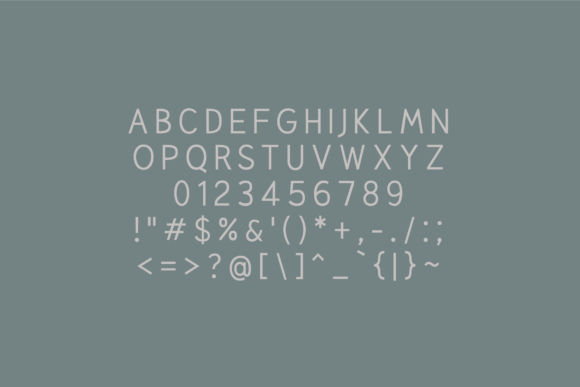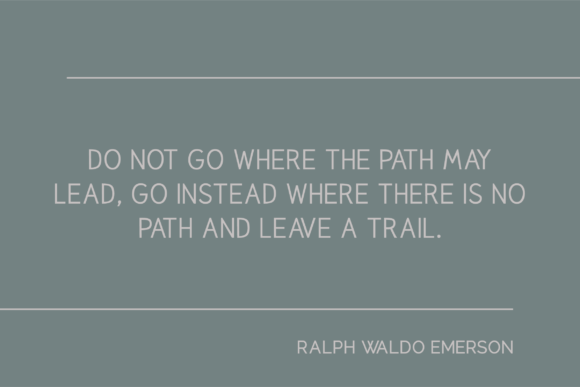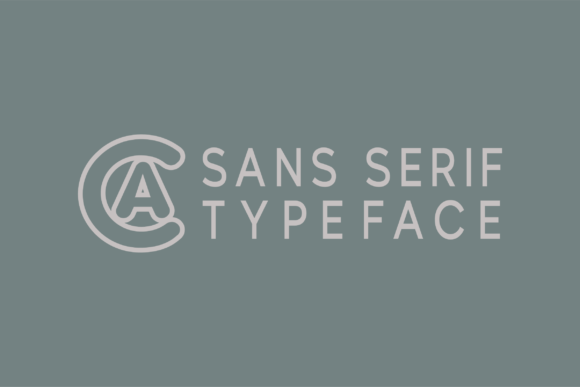
Unleash Your Creativity with Damoclaris: A Comprehensive Guide
I’ll never forget the time I was working on a wedding invitation project, and my client requested a font that exuded elegance and sophistication. I scoured the internet, tried out countless typefaces, but nothing seemed quite right. That was until I stumbled upon Damoclaris. This stunning sans serif font has been a game-changer for me, and I’m excited to share its beauty with you.
A Personal Review of Damoclaris
- ✨ **Contemporary Elegance**: Damoclaris embodies sophistication and style, making it perfect for high-end projects.
- ✅ **Versatility**: This font adapts effortlessly to various applications, from logos and weddings to invitations and advertisements.
- 💯 **Comprehensive Character Set**: Damoclaris includes an array of upper-case characters, numerals from 0-9, and an extensive collection of punctuation symbols.
While Damoclaris is an exceptional font, there are a few minor limitations to be aware of:
- 🤔 **Limited Lower-Case Characters**: Damoclaris primarily features upper-case characters, which may limit its use in certain projects.
The Backstory of Damoclaris
Damoclaris was designed by a team of typographers who sought to create a font that embodied the essence of contemporary elegance. Inspired by the minimalist and sleek designs of the modern era, Damoclaris was crafted to be versatile, sophisticated, and stylish.
| What is the primary use of Damoclaris? | Damoclaris is a versatile font suitable for a wide range of applications, including logos, weddings, invitations, and advertisements. |
| Is Damoclaris suitable for print media? | Yes, Damoclaris is ideal for print media, adding a touch of elegance and sophistication to magazines, brochures, and other printed materials. |
| Does Damoclaris support OpenType features? | Yes, Damoclaris supports OpenType features, including glyphs and stylistic alternates, allowing for advanced typographic control. |